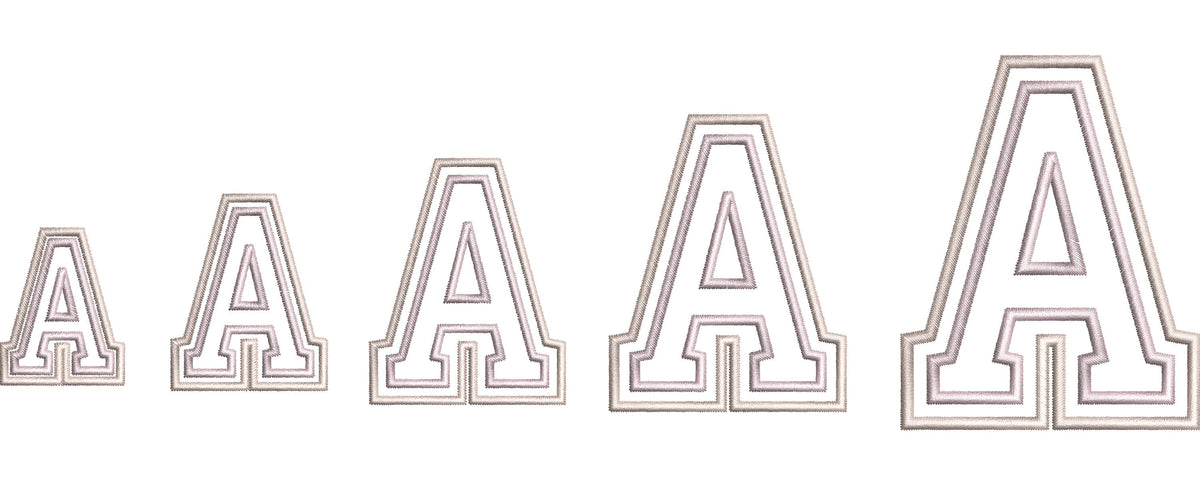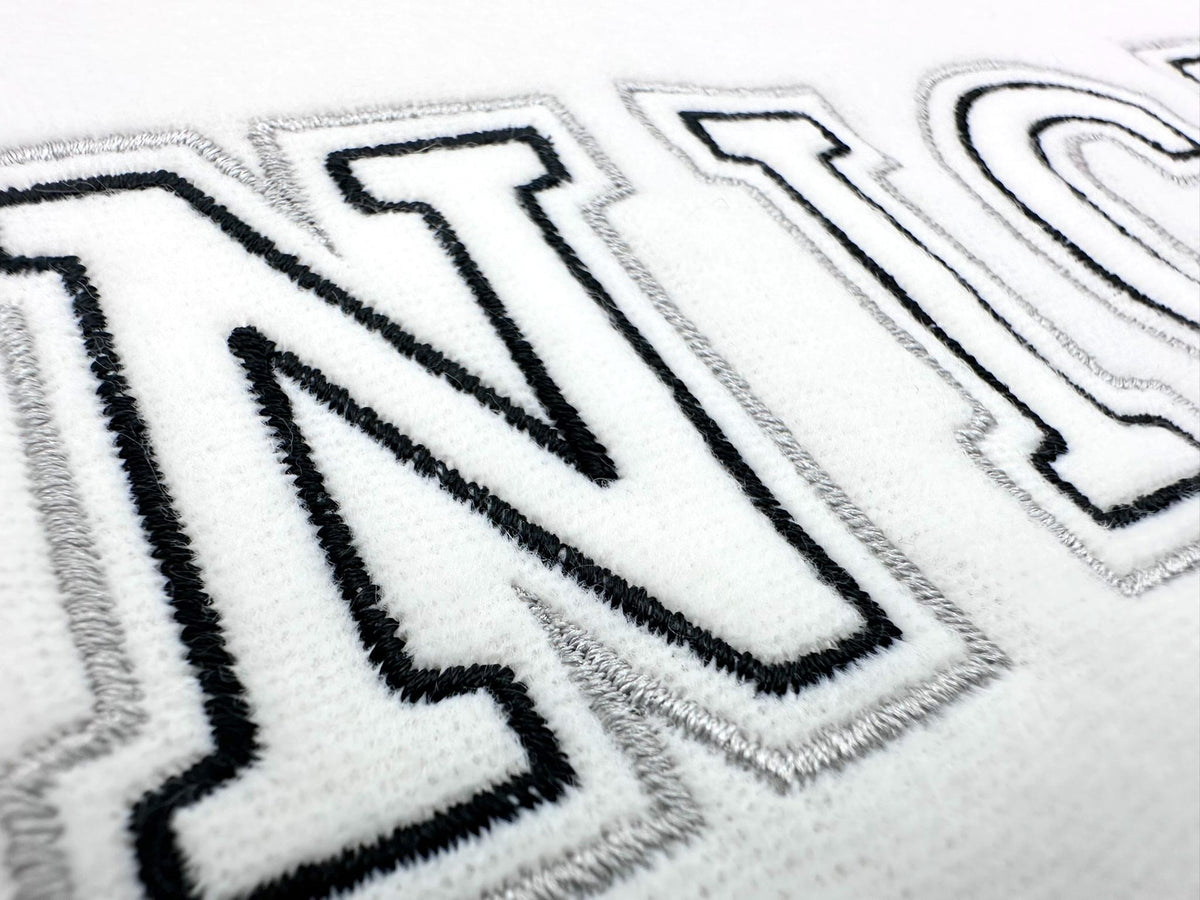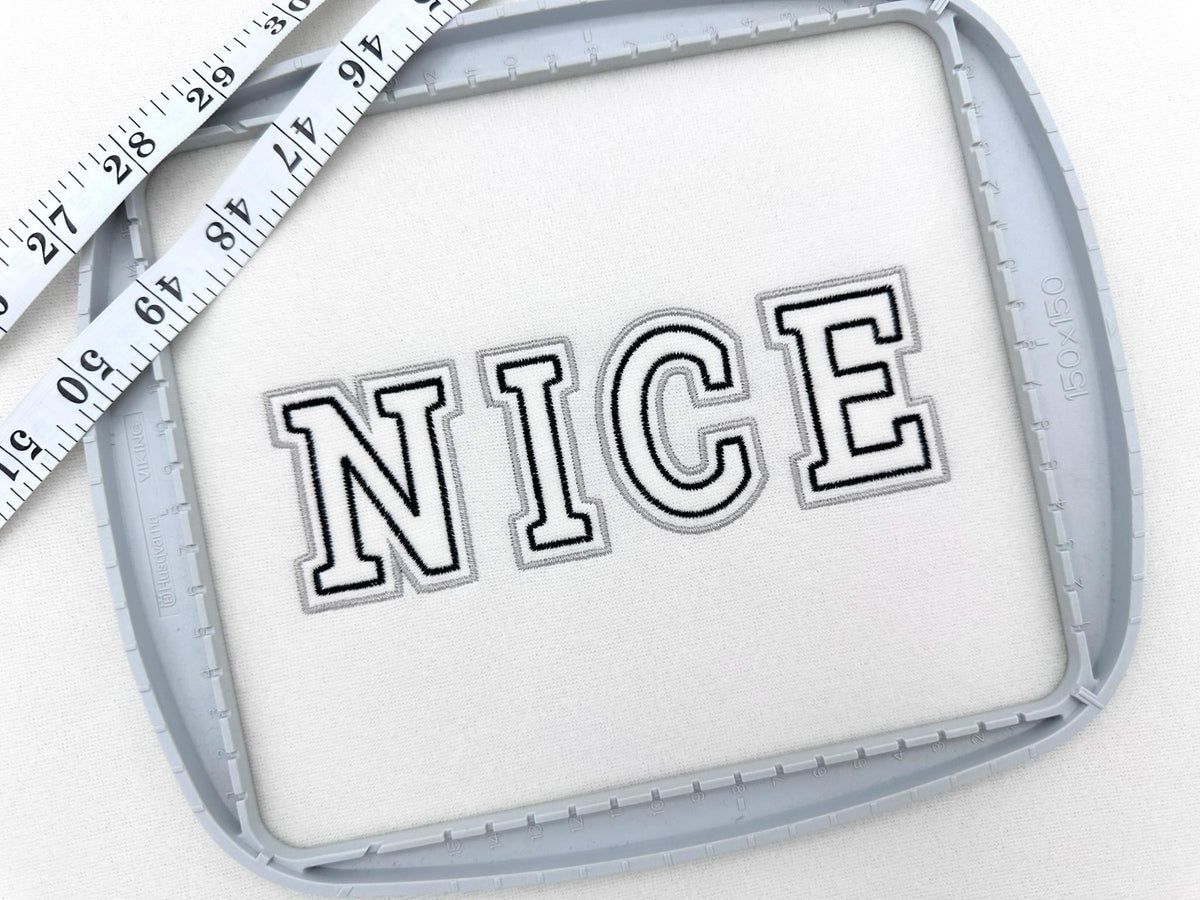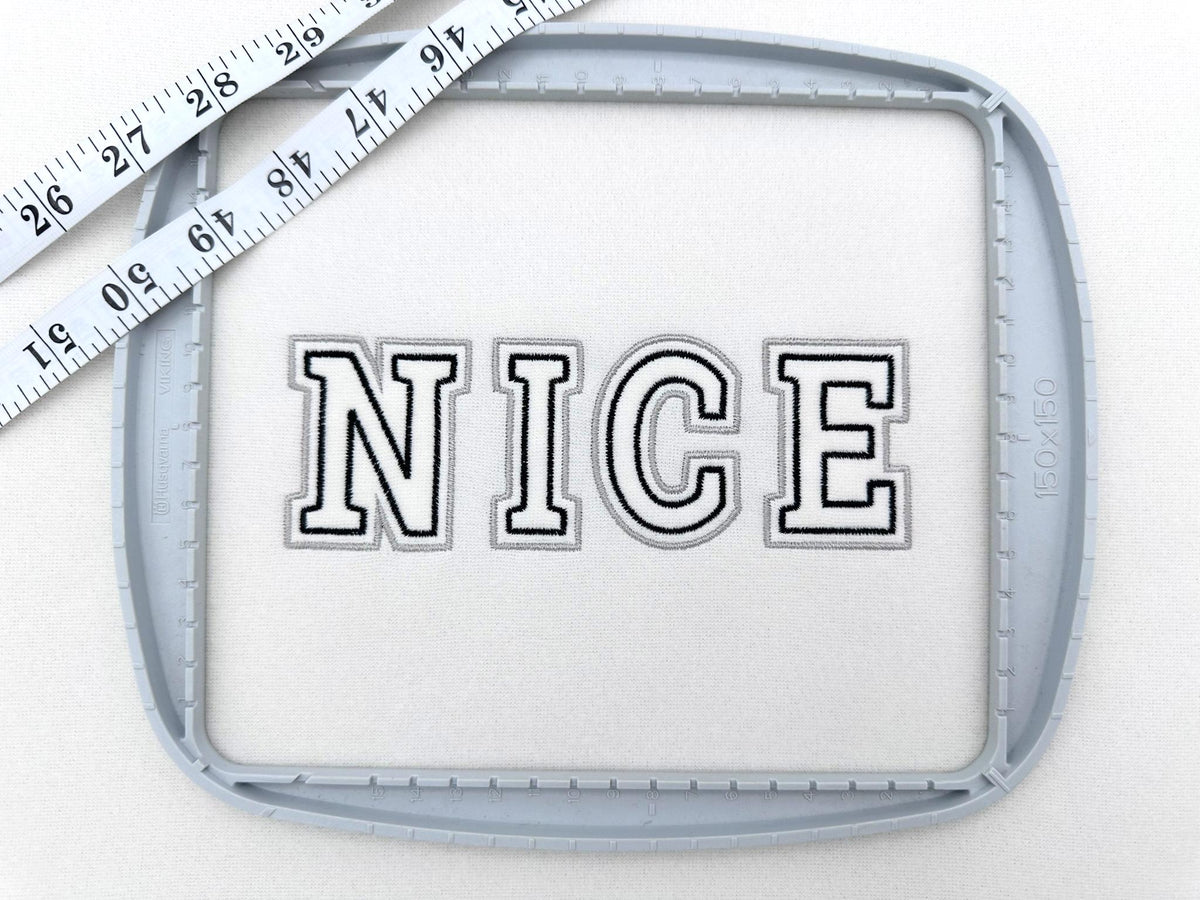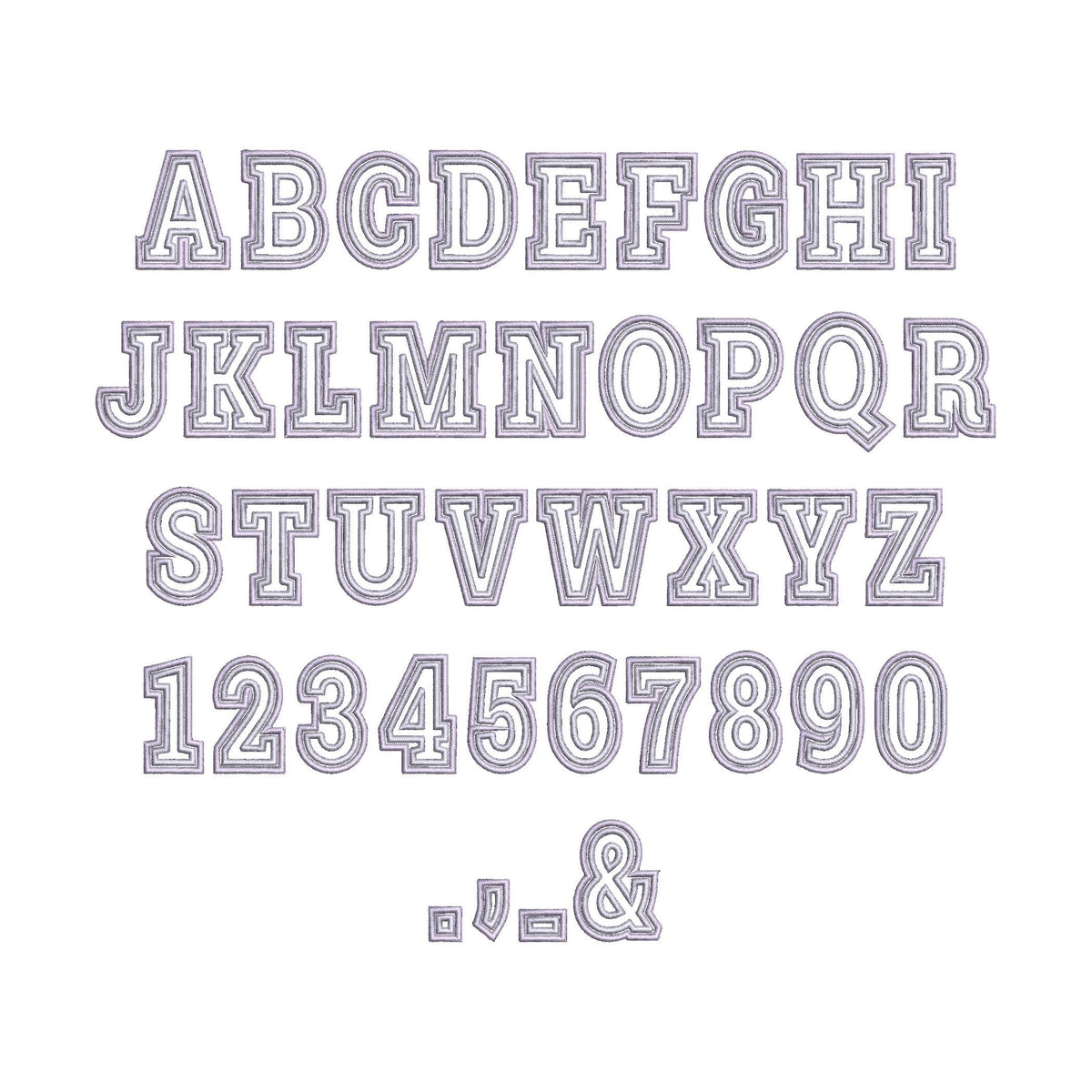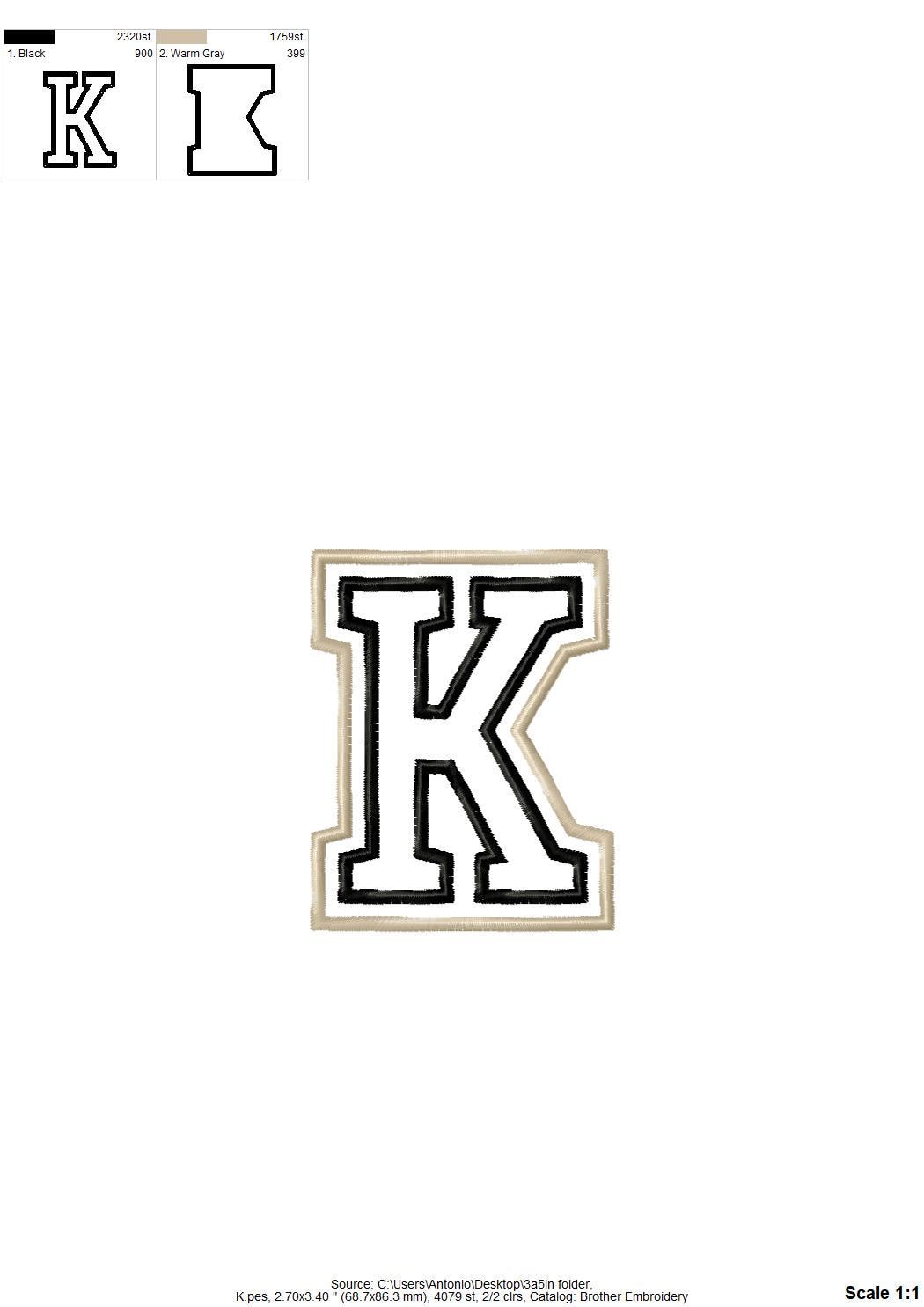
Nice Alpha Sport Font
Or click to open the linkA modern sport font made of two satin stitch outlines. Quick to stitch for team names, shirts and bags.
The letters come in seven sizes: 1.5, 1.8, 2.3, 2.8, 3.5, 4.4 and 5.5 inches. Only two outlines, so the fabric shows through for a quick, modern look. Includes uppercase letters A to Z, numbers 0 to 9 and punctuation.
- Double outline sport font, satin stitch
- Uppercase A to Z, numbers 0 to 9, punctuation
- 7 sizes, 1.5 to 5.5 in